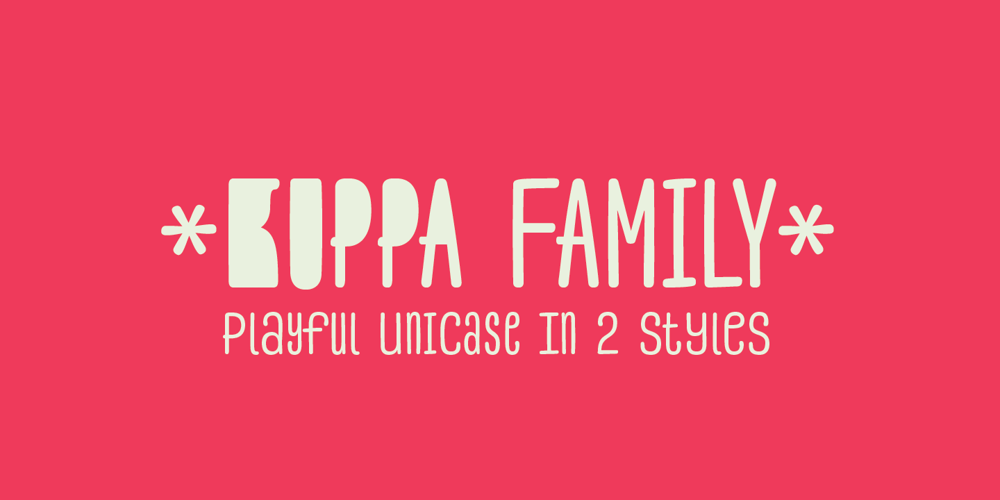
Kuppa Font Family was designed by Dmytro Iarynych and published by Huh? Type Foundry. Kuppa contains 4 styles and family package options. Kuppa is a yummy display unicase with a lot of attitude. Two styles within the Kuppa family a like brothers — look alike and still completely different. Both brothers have 555 glyphs, including alternates, ligatures, fractions and even german capital eszett and excluding Cyrillic in Basic version. Kuppa Regular is clear, powerful and will suit for menus, coffee shop and restaurant use, for magazine handwritten heads and sub-lines and even for kids books. Kuppa Fat is on the dark side — it is bizarre and wild, sometimes even hardly legible. Sometimes you won’t see letters, just encrypted symbols — perfect for music posters, vinyl shops, cd covers and hip stuff.